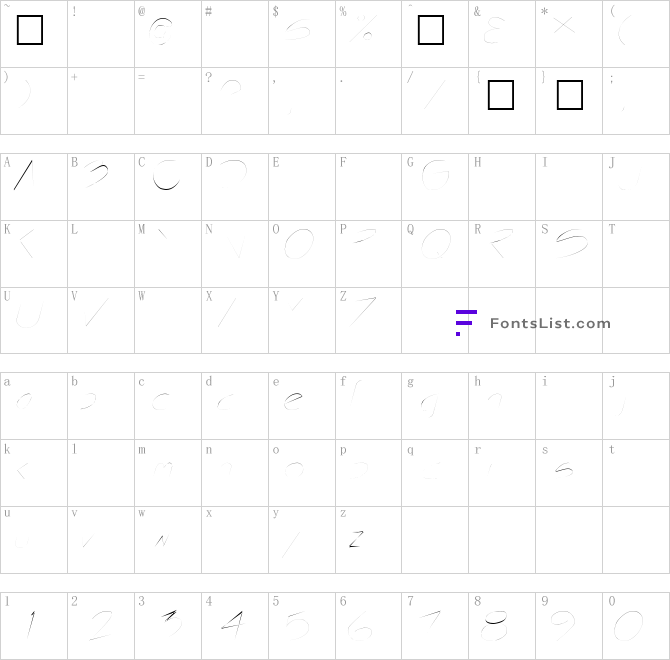
- Font Name:ArchiBold
ArchiBold.ttf is a very beautiful artistic font, ArchiBold.ttf is widely used in the design and printing of various books and pictures,ArchiBold.ttf has a strong visual impact,ArchiBold.ttf is a commonly used font in newspapers, magazines and books, and is used in posters, e-commerce Poster design, store design, logo design, font design and other fields.ArchiBold.